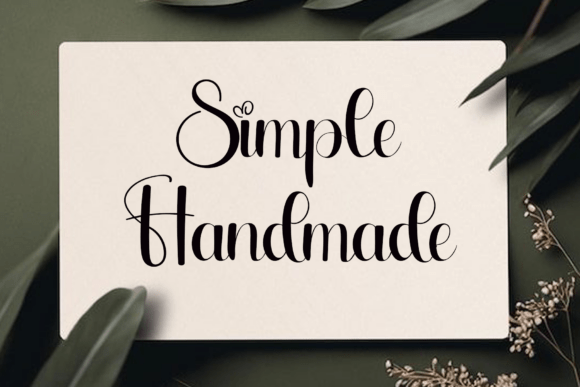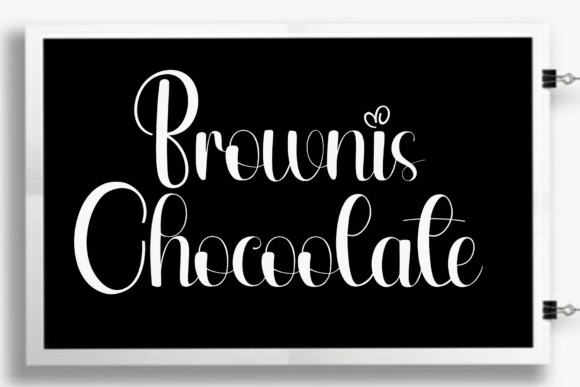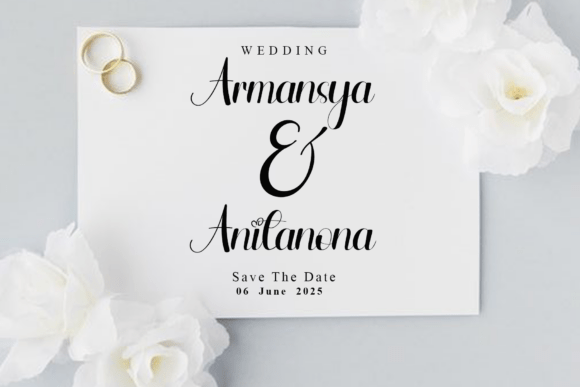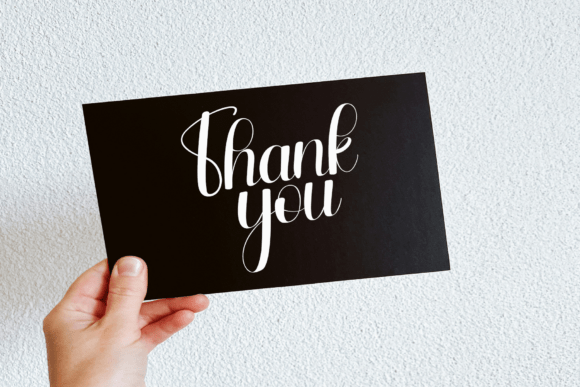
Introducing Happy Teacher Font: The Sweet and Cursive Handwritten Font for Your Design Needs
Are you a designer or crafter looking for a font that can add a touch of joy and romance to your projects? Look no further than Happy Teacher Font! This sweet and cursive handwritten font is perfect for a variety of design ideas, from branding and logos to wedding things, greeting cards, and more.
The Characteristics of Happy Teacher Font
Happy Teacher Font is a gentle and elegant font that is sure to make your designs stand out. Its cursive and handwritten style gives it a personal and approachable feel, making it perfect for designs that require a touch of warmth and personality. The font is highly versatile and can be used for a wide range of projects, including:
- Branding and logos: Add a touch of elegance and sophistication to your brand’s identity with Happy Teacher Font.
- Wedding things: Create beautiful wedding invitations, decorations, and other materials with this lovely font.
- Greeting cards: Make your greeting cards stand out with the sweet and cursive style of Happy Teacher Font.
- Fashion and lookbook: Use Happy Teacher Font to add a touch of glamour and sophistication to your fashion designs and lookbooks.
- Marketing promotion: Create eye-catching marketing materials, such as brochures and flyers, with this elegant font.
Why Choose Happy Teacher Font?
So, why should you choose Happy Teacher Font for your design needs? Here are just a few reasons:
- Unique and elegant style: Happy Teacher Font has a unique and elegant style that is sure to make your designs stand out.
- Highly versatile: This font can be used for a wide range of projects, from branding and logos to wedding things and greeting cards.
- Easy to read: Despite its cursive style, Happy Teacher Font is easy to read and understand, making it perfect for designs that require a lot of text.
- Fancy and elegant but still casual: Happy Teacher Font strikes the perfect balance between being fancy and elegant, while still being casual and approachable.
How to Use Happy Teacher Font
In conclusion, Happy Teacher Font is a sweet and cursive handwritten font that is perfect for designers and crafters looking to add a touch of joy and romance to their projects. Its unique and elegant style, versatility, and ease of use make it a great choice for a wide range of design needs. Whether you’re creating branding materials, wedding invitations, or greeting cards, Happy Teacher Font is sure to make your designs stand out.